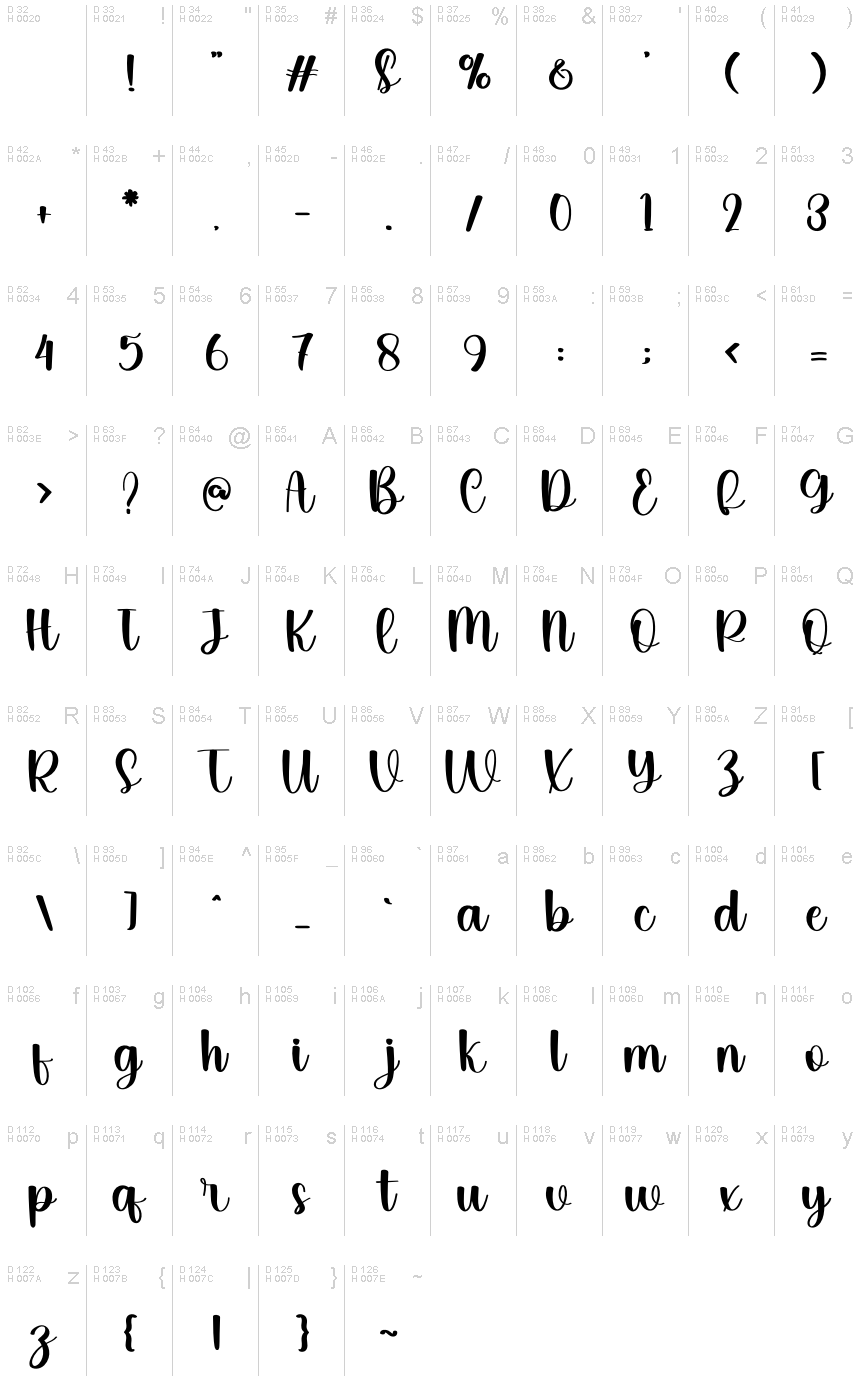
Beach In Valentine
Beach In Valentine by Inermedia Studio is a semi-bold handwritten font that captures the essence of carefree days and romantic whimsy. Its sweeping curves and playful loops evoke a sense of nostalgia, making it perfect for designs that require a personal touch. The aesthetic appeal lies in its casual elegance, blending seamlessly with projects that aim to convey warmth and intimacy.
This font's versatility shines through its suitability for invitations, branding, social media graphics, and any creative endeavor that benefits from a handcrafted look. Its semi-bold weight ensures legibility while maintaining an airy charm, making Beach In Valentine an irresistible choice for those seeking to infuse their work with heartfelt emotion and laid-back sophistication.